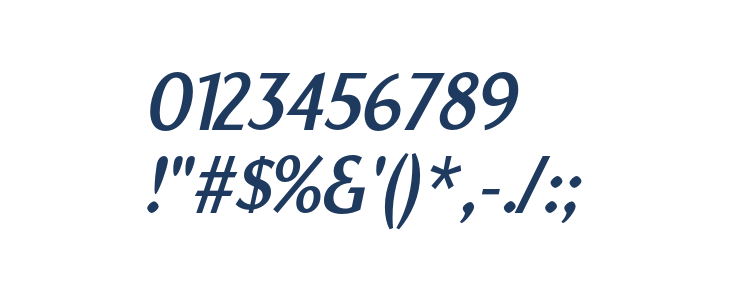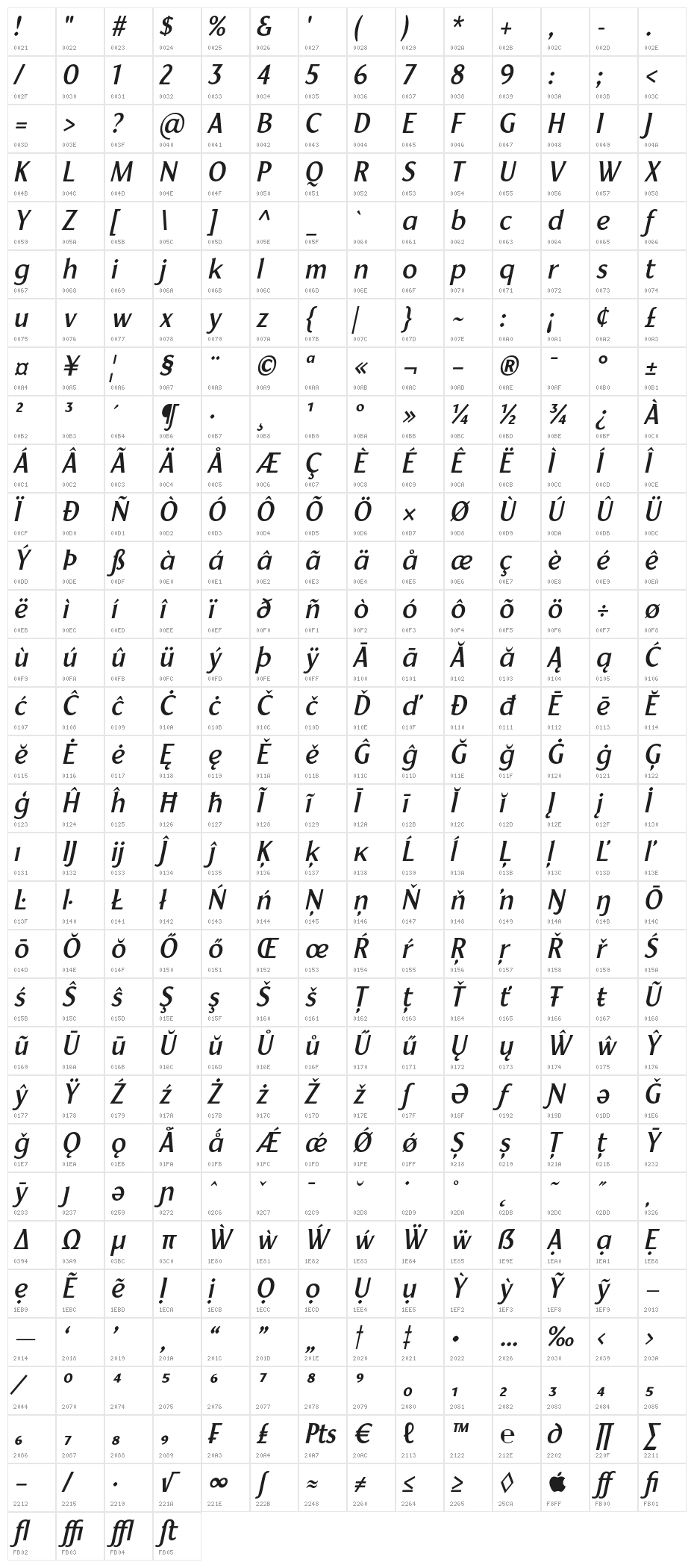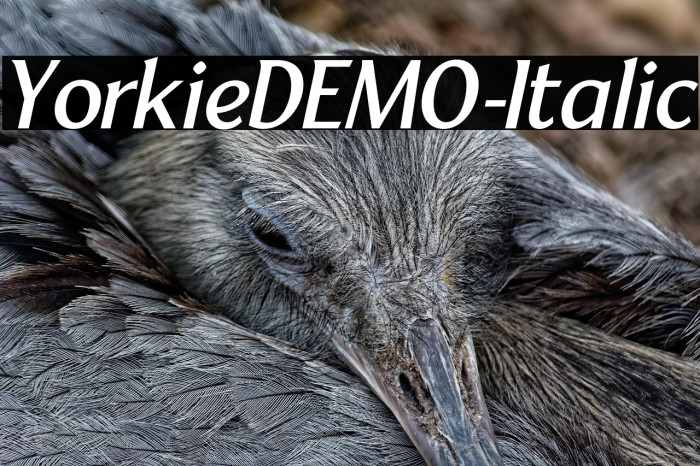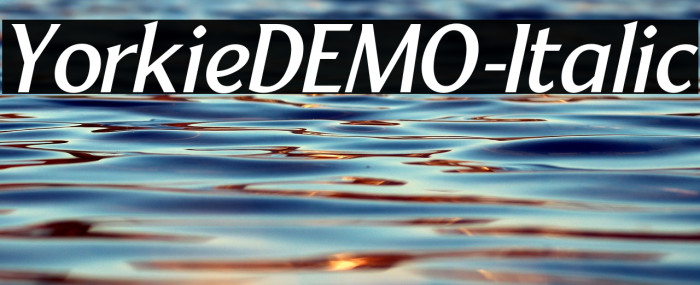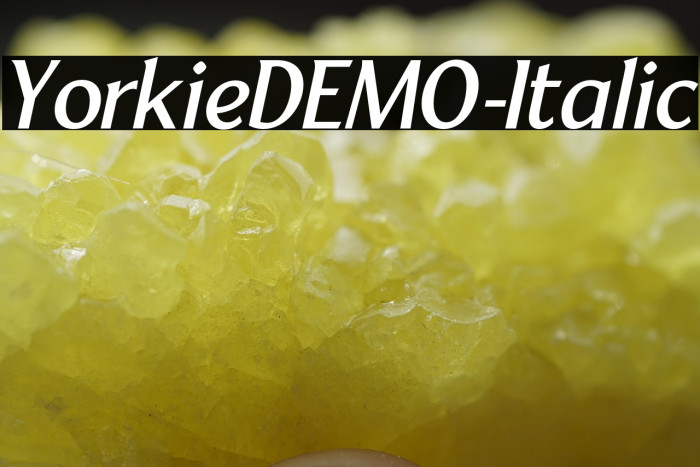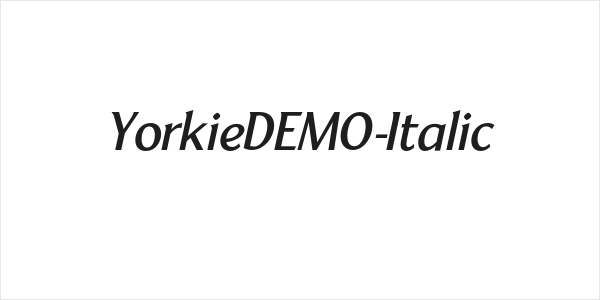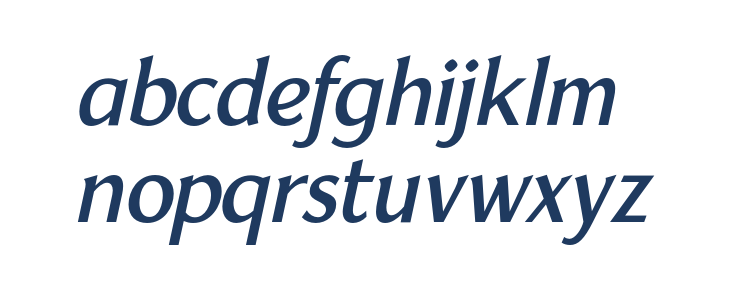
YorkieDEMO-Italic Font
YorkieDEMO-Italic Description
This font features a sleek and elegant italic style, characterized by its smooth curves and slightly condensed form. The uppercase letters are tall and commanding, while the lowercase letters maintain a consistent flow, enhancing readability. The numerals are well-proportioned, aligning seamlessly with the alphabetic characters. Special characters are distinct and maintain the overall aesthetic, making them suitable for various applications. The font's design is modern yet timeless, offering versatility in both digital and print media.